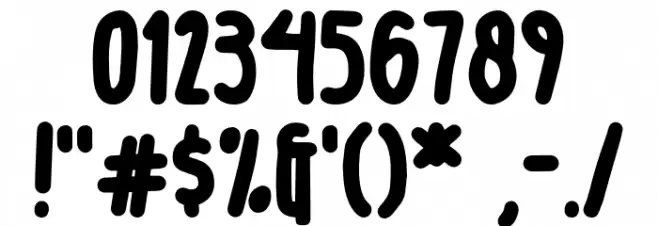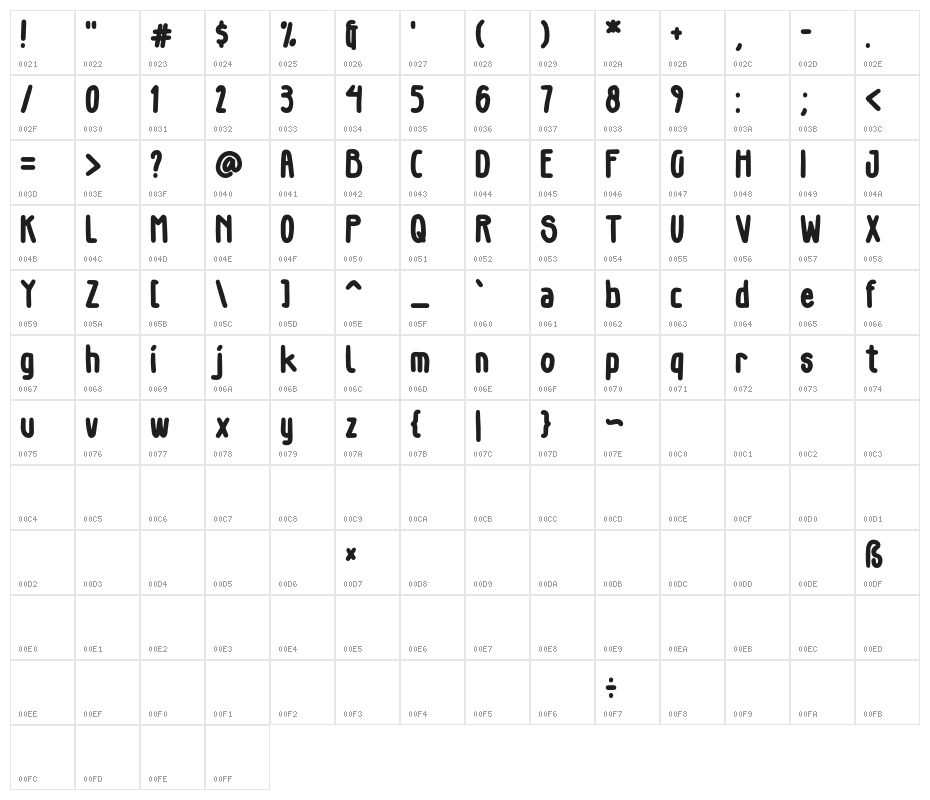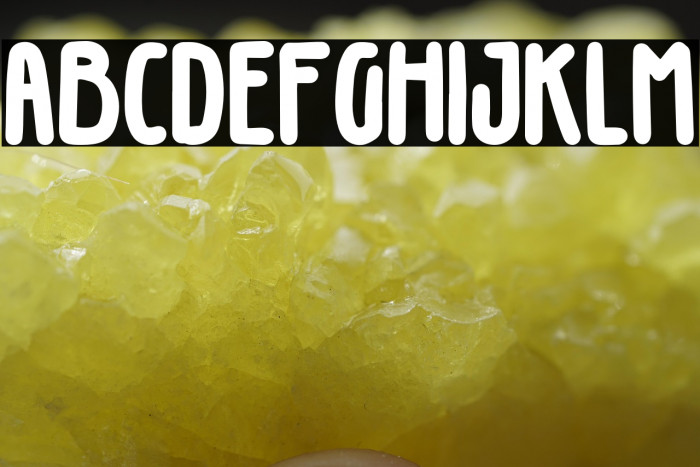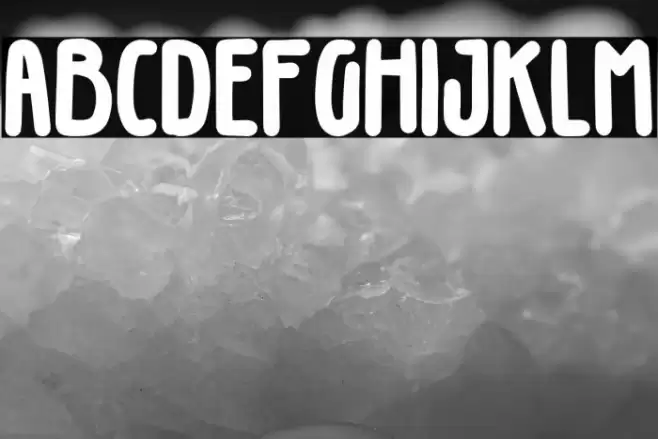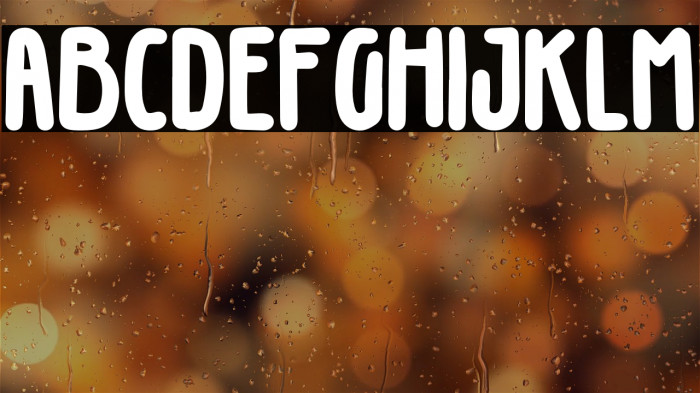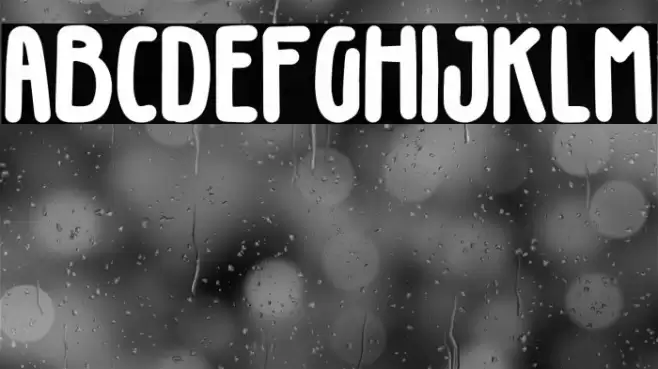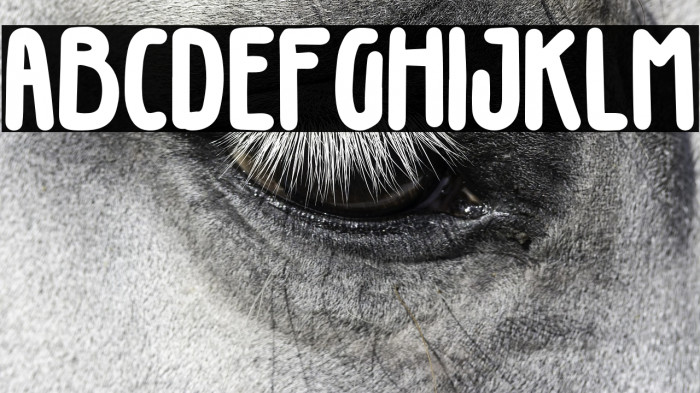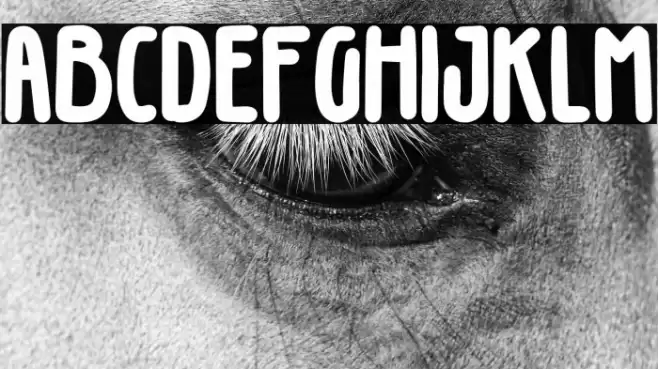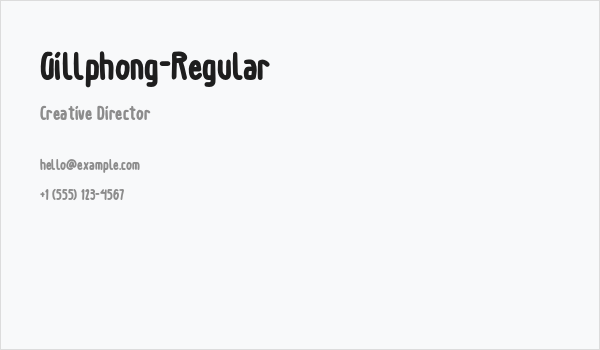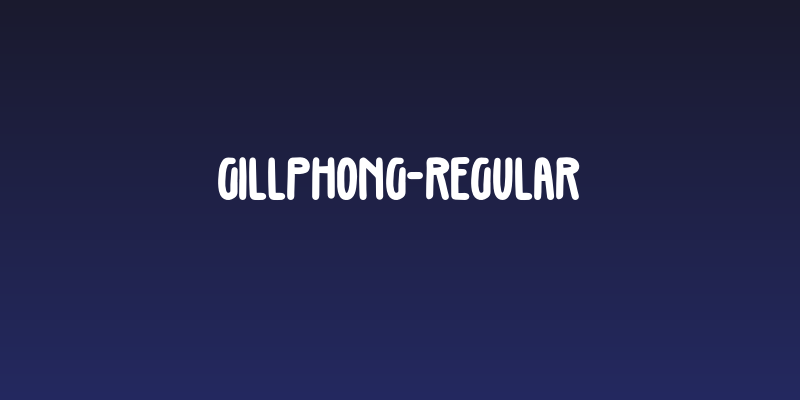
Gillphong-Regular Font
Gillphong-Regular Description
This font features a bold and playful design with rounded edges and a slightly condensed appearance. The characters are uniformly thick, giving it a strong presence and making it highly legible. The uppercase and lowercase letters maintain a consistent style, with a slight whimsical touch that adds character. The numbers and special characters follow the same design principles, ensuring a cohesive look across all elements. This font is ideal for projects that require a fun and approachable aesthetic.